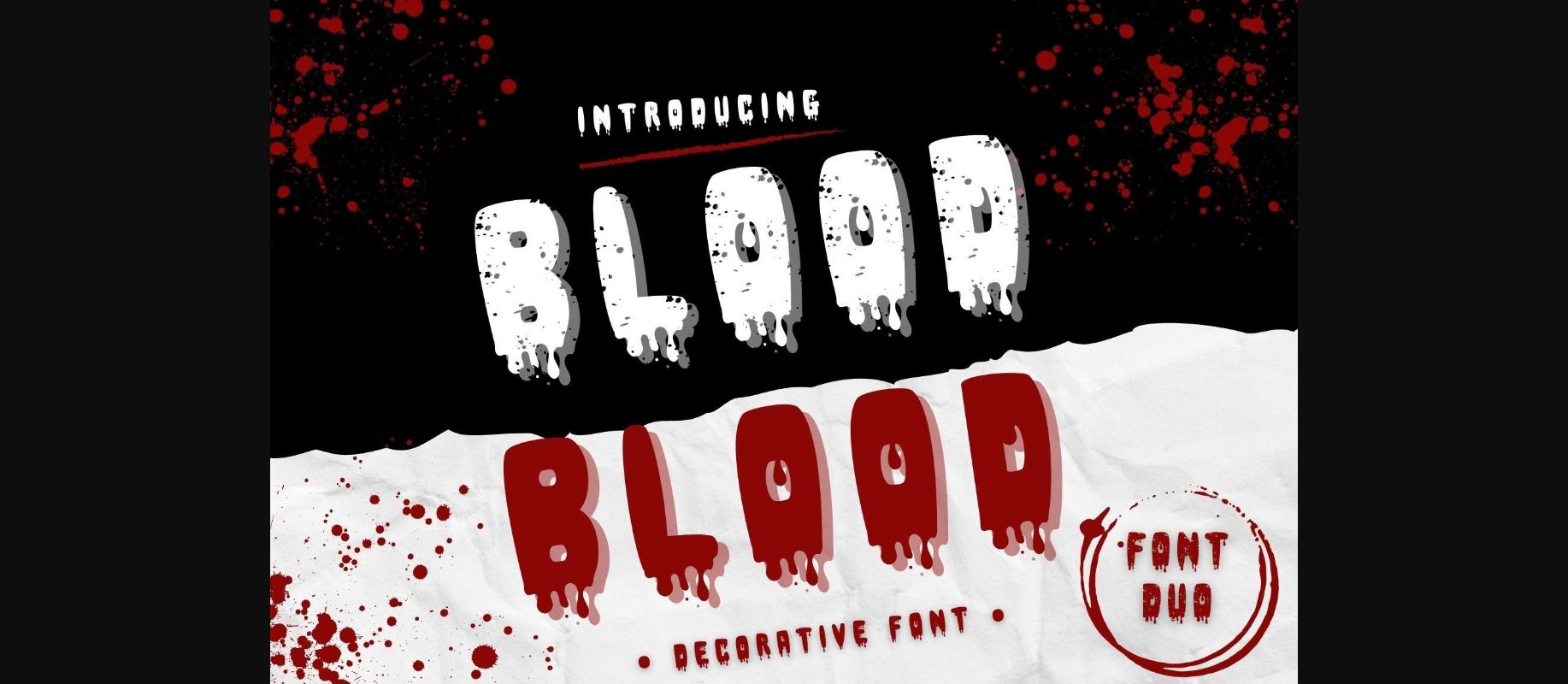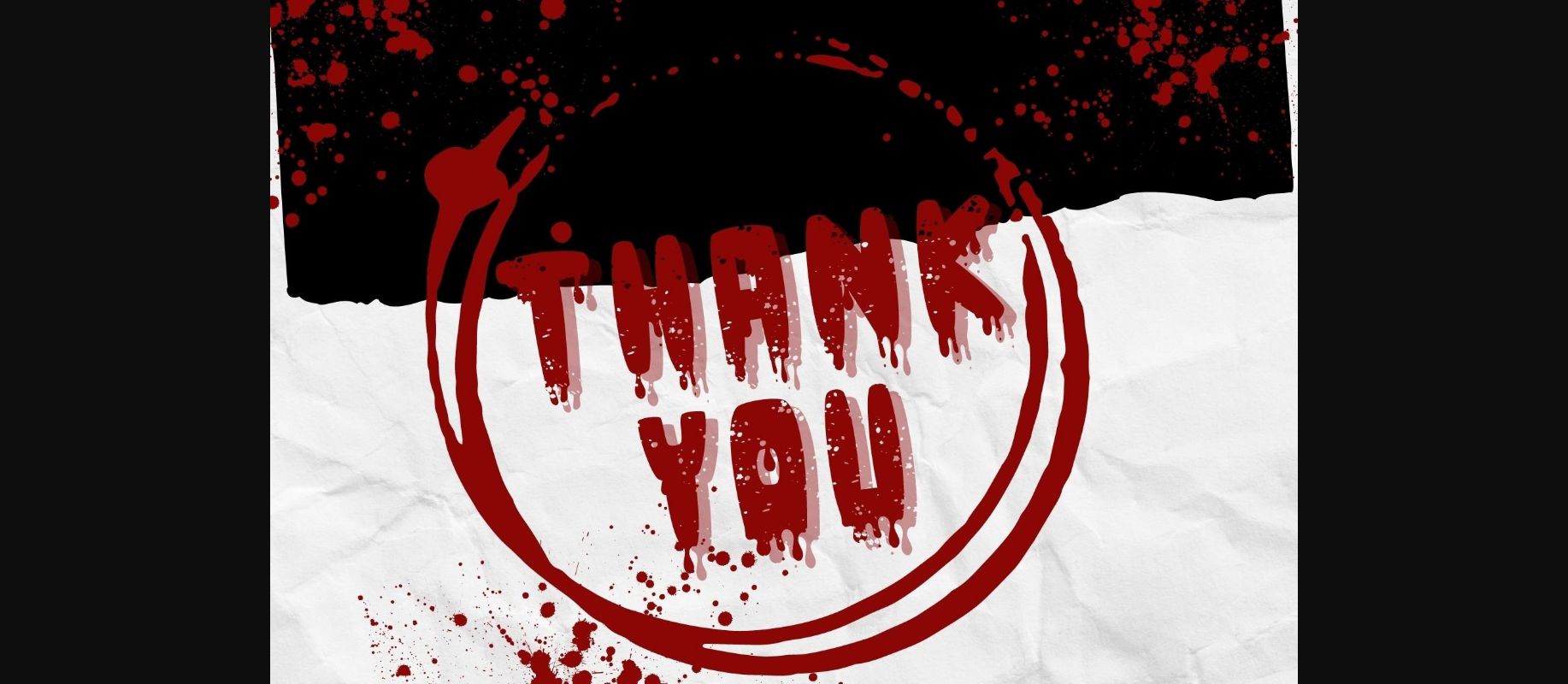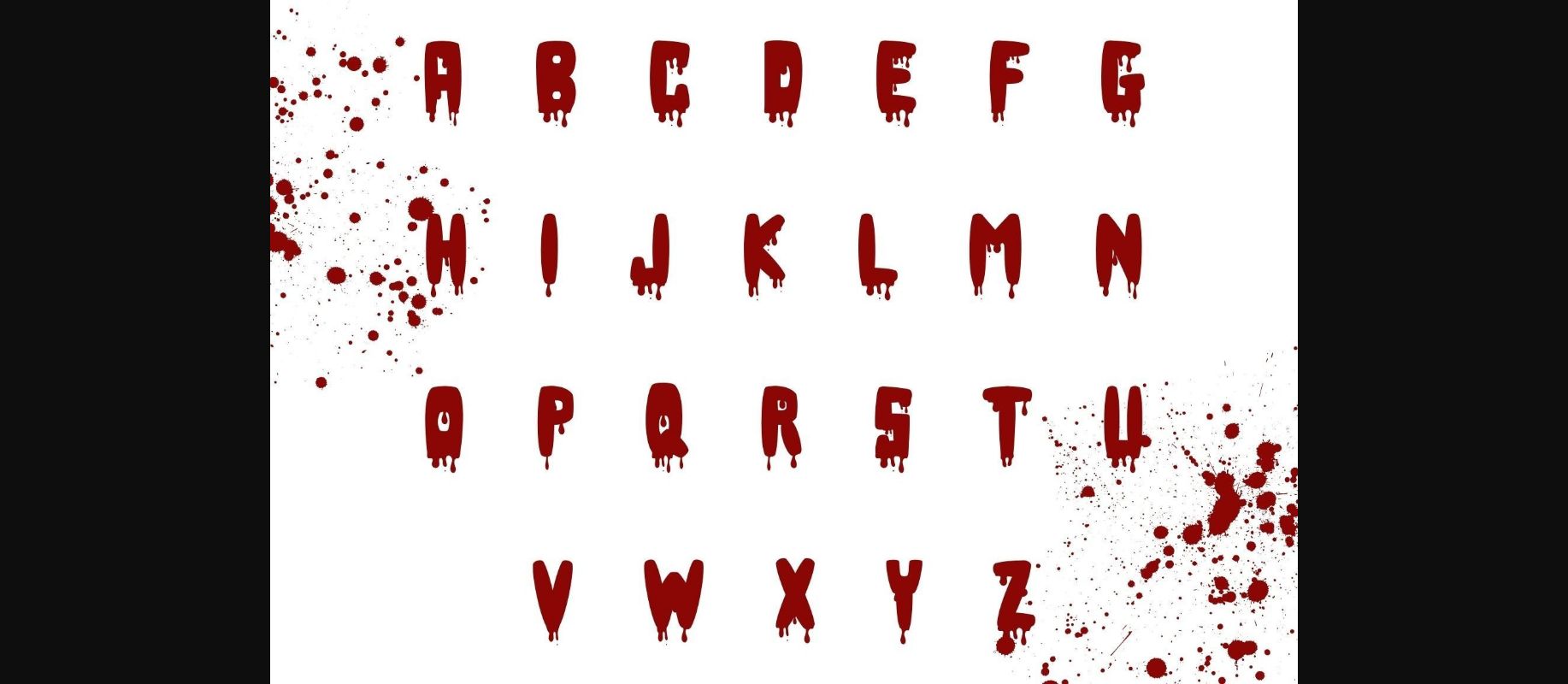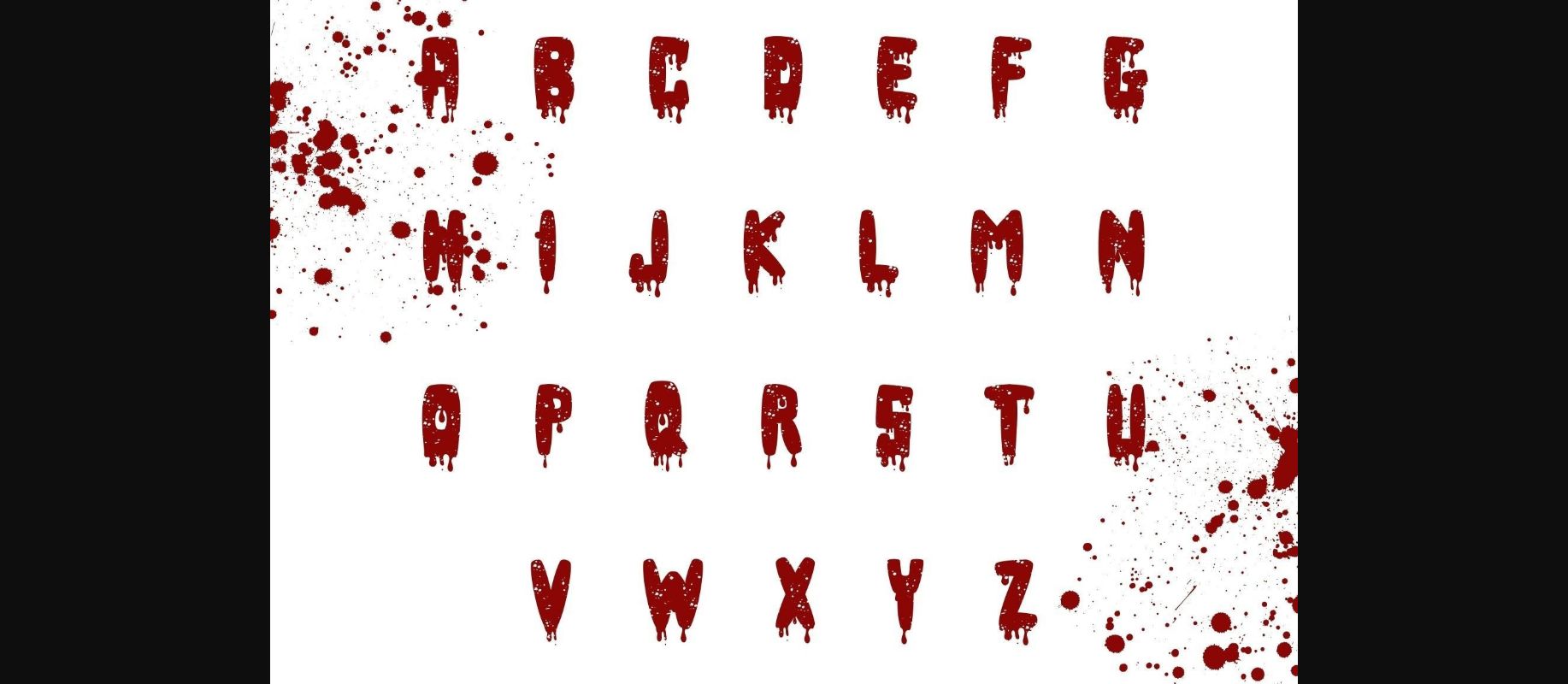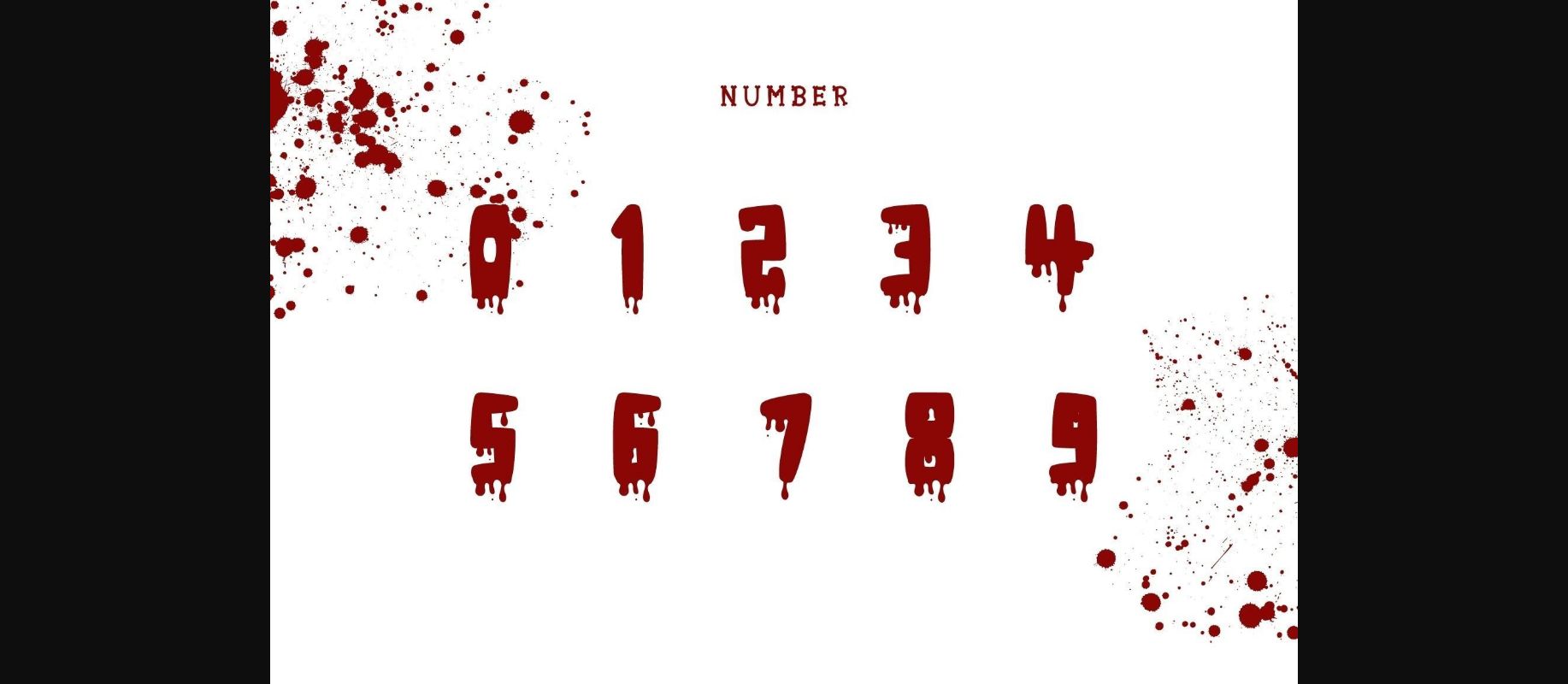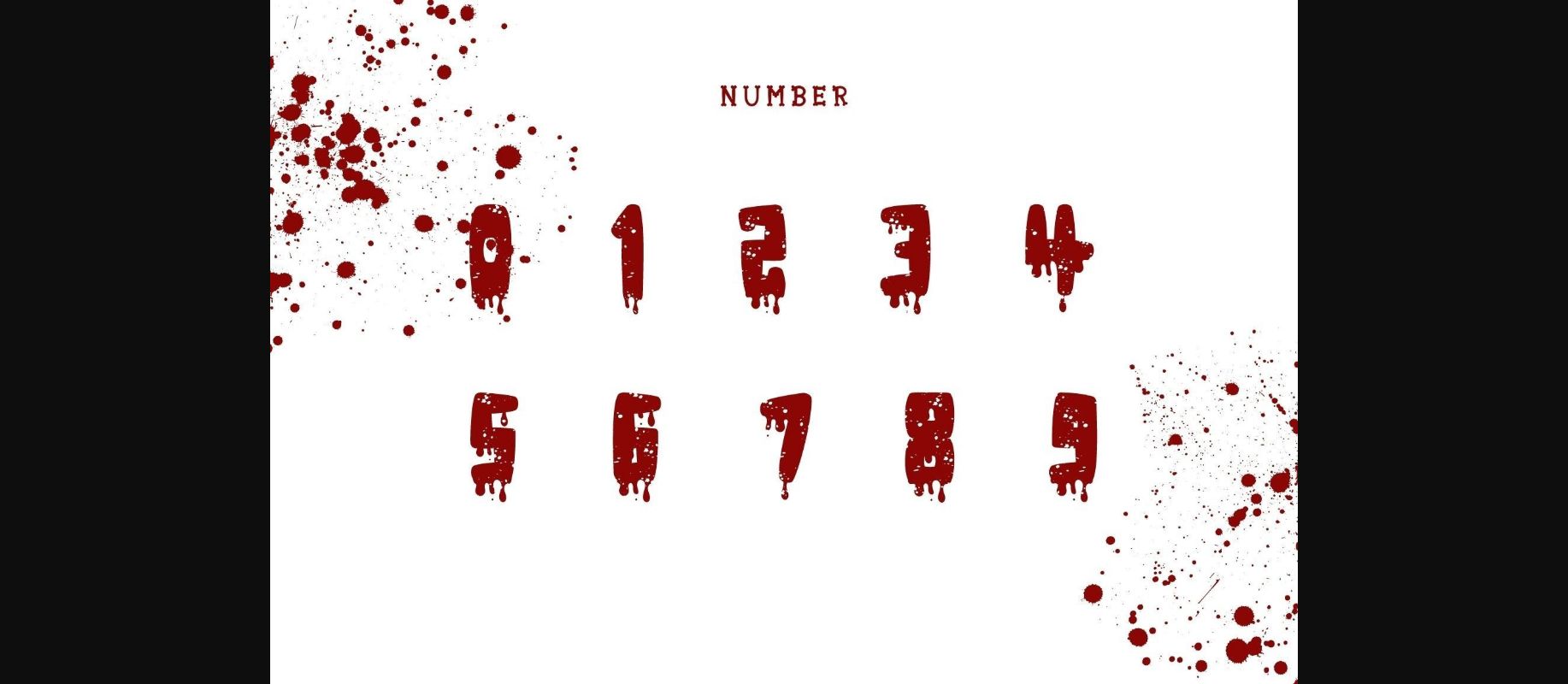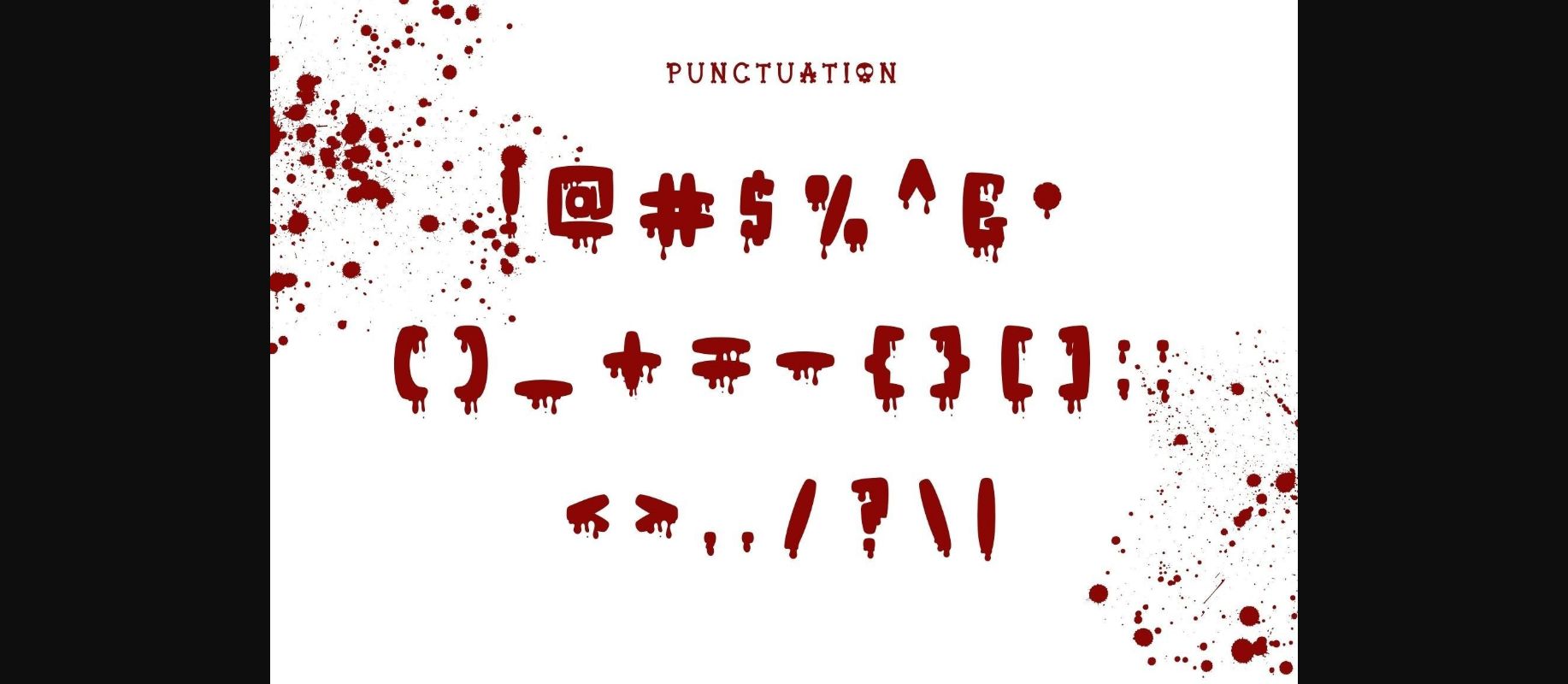
About Blood Font
Blood is a scary and fun decorative font. It embodies playfulness and authenticity and is the perfect choice for all your favorite Halloween projects, or even for blog posts, logos, branding, ads, invitations, greeting cards, planners, photo albums, decorations, and much more. Add it to any of your designs, and enjoy the results!